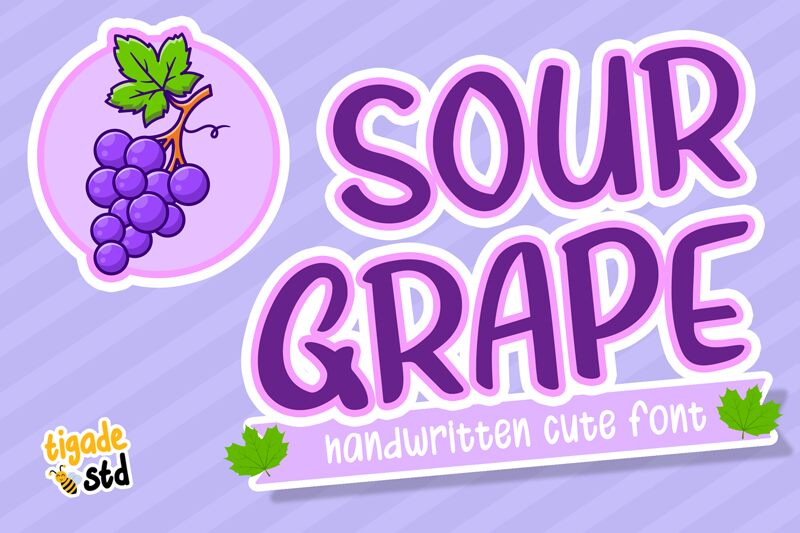
Sourgrape
Sourgrape font by Tigadestd is a handwritten style typeface that captures an inviting and friendly essence. Its casual and organic appearance creates a charming balance between informality and refinement, making it perfect for designs that need a creative touch. Sourgrape speaks naturally to audiences with its approachable design style.
This free handwritten font is perfect for advertising campaigns, branding, packaging, stationery designs, social media content creation, wedding invitations, greeting cards, digital art pieces of all kinds, website headers or footers where legibility matters most.